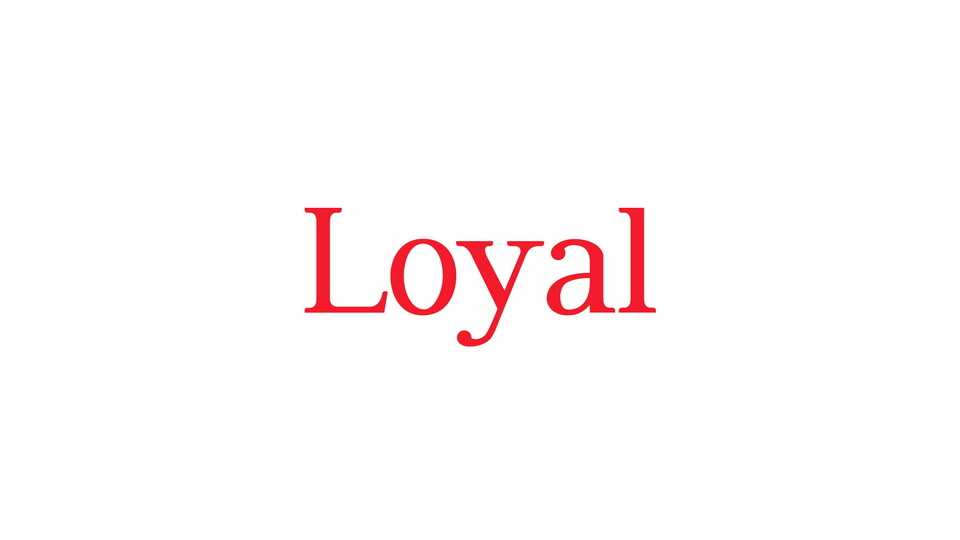
Download Loyal font, a cutting-edge and versatile serif typeface that seamlessly marries modern design with distinctive contrasts. This typeface is crafted for versatility, making it a perfect choice for a lot of applications, from editorial layouts and branding to digital interfaces.
Designer: Emmet Blanchette